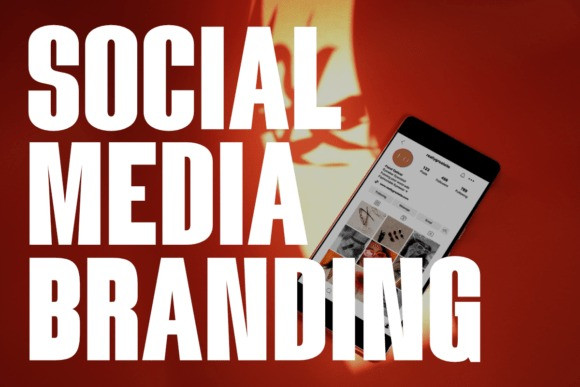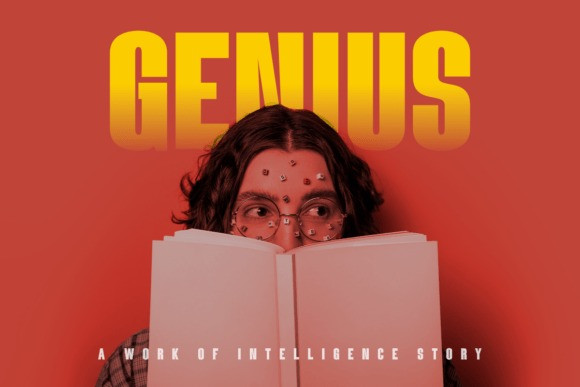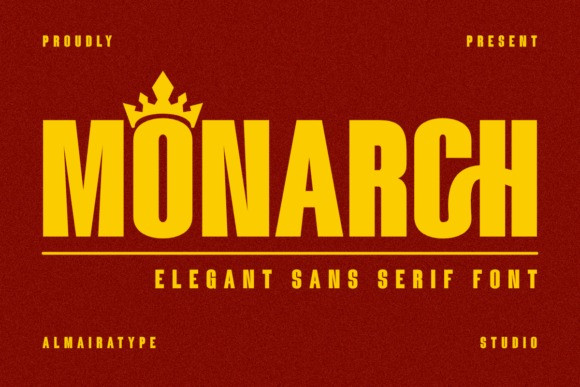
Monarch Sans Font
Monarch Sans Font is a bold and regal sans serif font with elegant, commanding letterforms that radiate confidence. Its clean yet powerful design makes it perfect for designers who want to create striking products for print-on-demand platforms, Etsy shops, Cricut vinyl projects, and sublimation prints. The tall, structured characters combined with subtle vintage charm give Monarch a timeless appeal — ideal for branding, statement t-shirt designs, luxury packaging, wedding signage, and motivational quote prints. Whether you’re cutting vinyl decals, designing sublimation mugs, or selling digital prints on Etsy, Monarch ensures your designs stand out with authority and style.